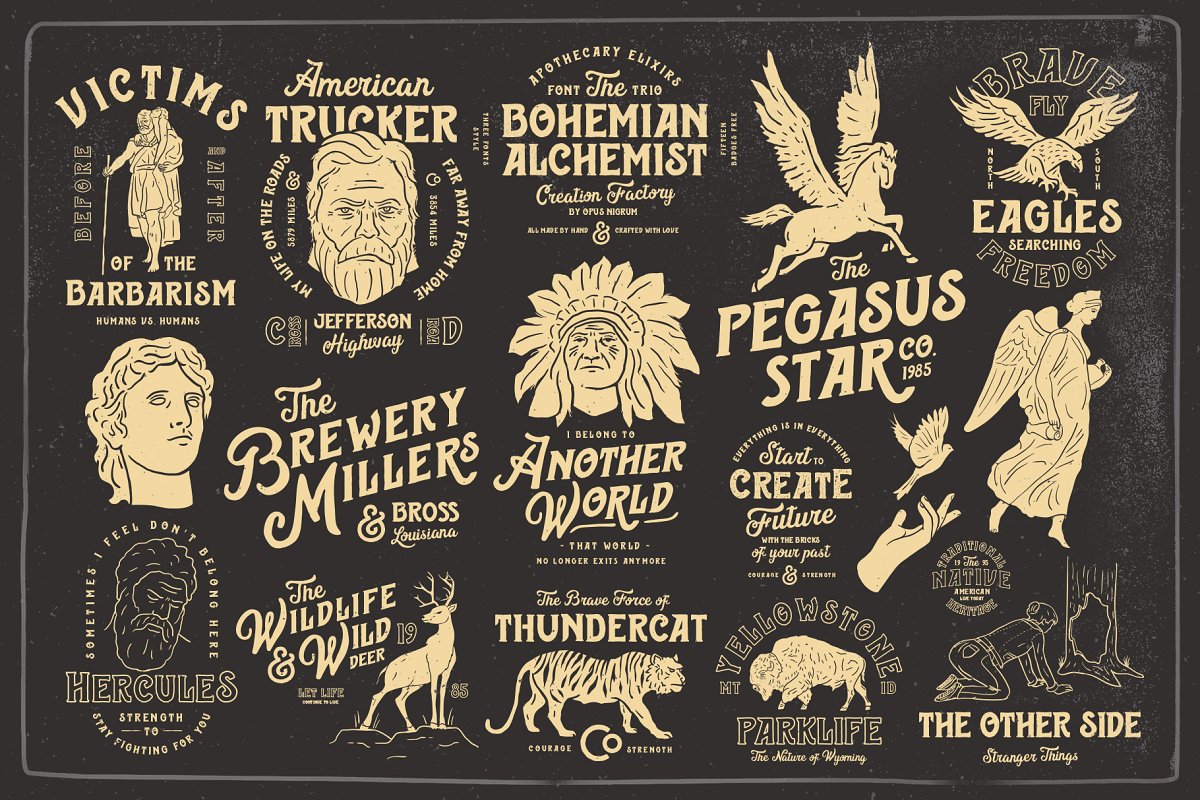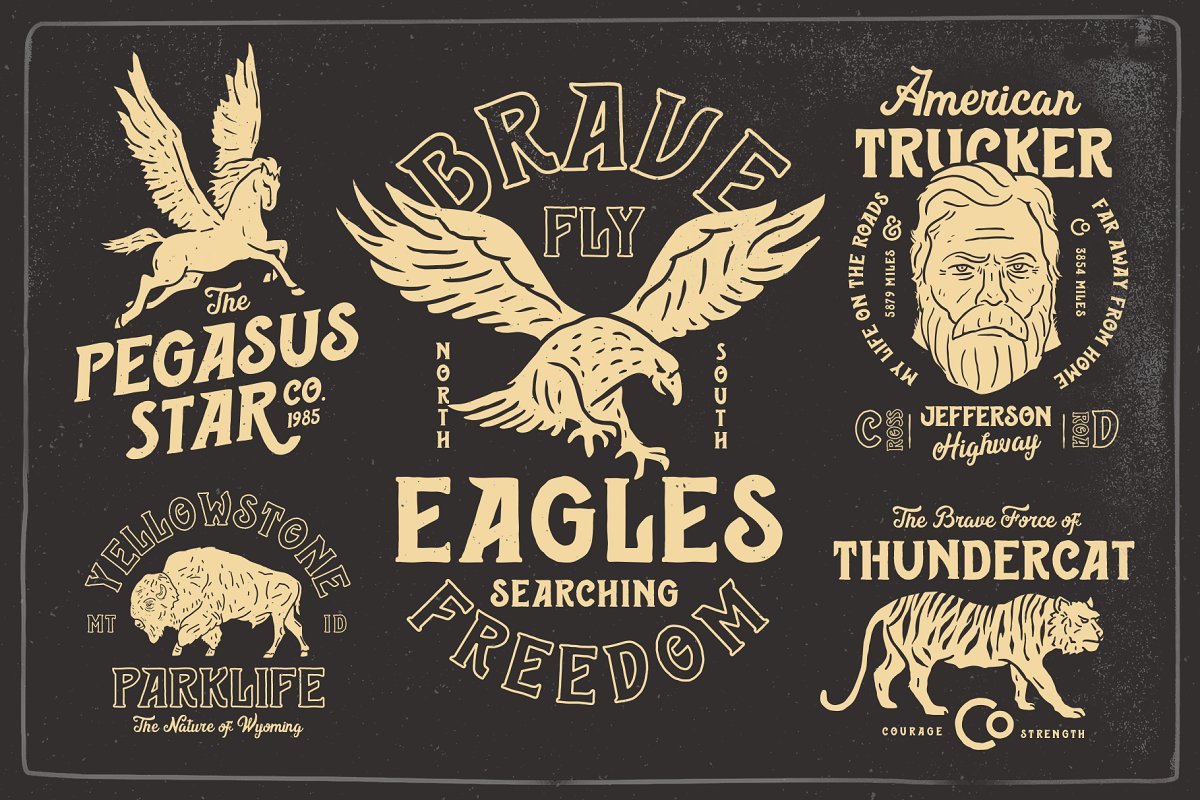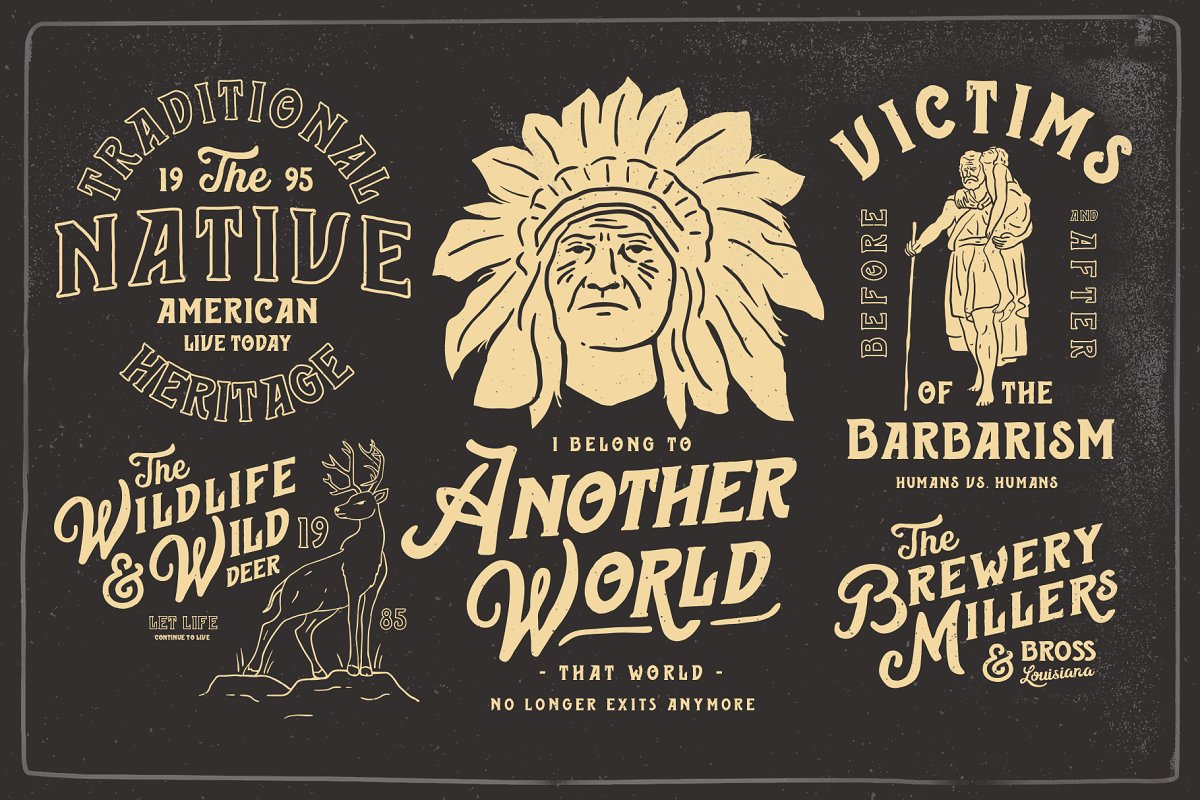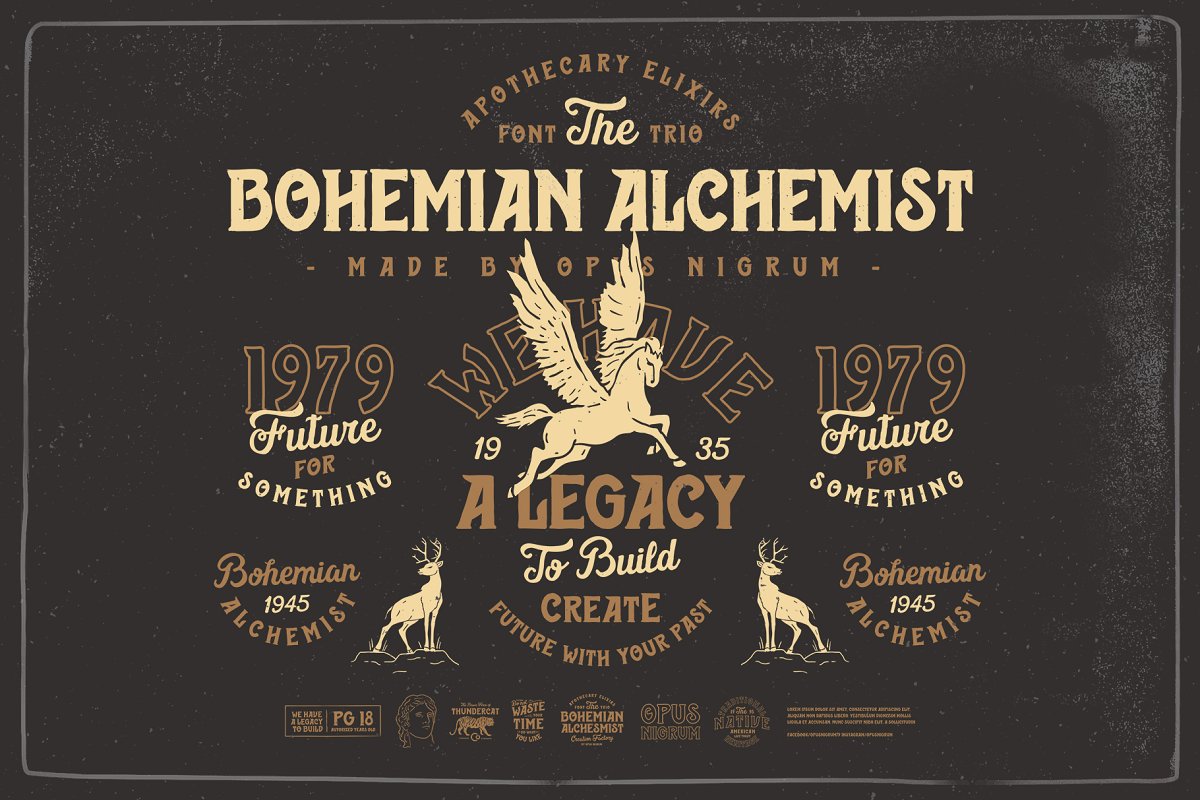
About the Bohemian Alchemist Badge Font
BOHEMIAN ALCHEMIST Font + BadgesThis font was inspired by the old pharmacy bottle labels, With some retro and dirty art deco, handmade, The alchemy of design, everything is in everything and Bohemian Alchemist is not the exception, it is the mixture of styles and times to create something unique, This font was made entirely by hand, I hope you like it!Product Content:Bohemian Alchemist Caps OTFBohemian Alchemist Caps Eroded OTFBohemian Alchemist Caps Inline OTFBohemian Alchemist Script Eroded OTFBOHEMIAN ALCHEMIST BADGES Ai(editable text, colors and Infinitely scalable) Illustrator CS4 or +BOHEMIAN ALCHEMIST SHAPE VECTOR Ai(editable colors and Infinitely scalable) Illustrator CS4 or +BOHEMIAN ALCHEMIST LINE VECTOR Ai(editable colors and Infinitely scalable) Illustrator CS4 or +See More about the Bohemian Alchemist in my Behance: https://www